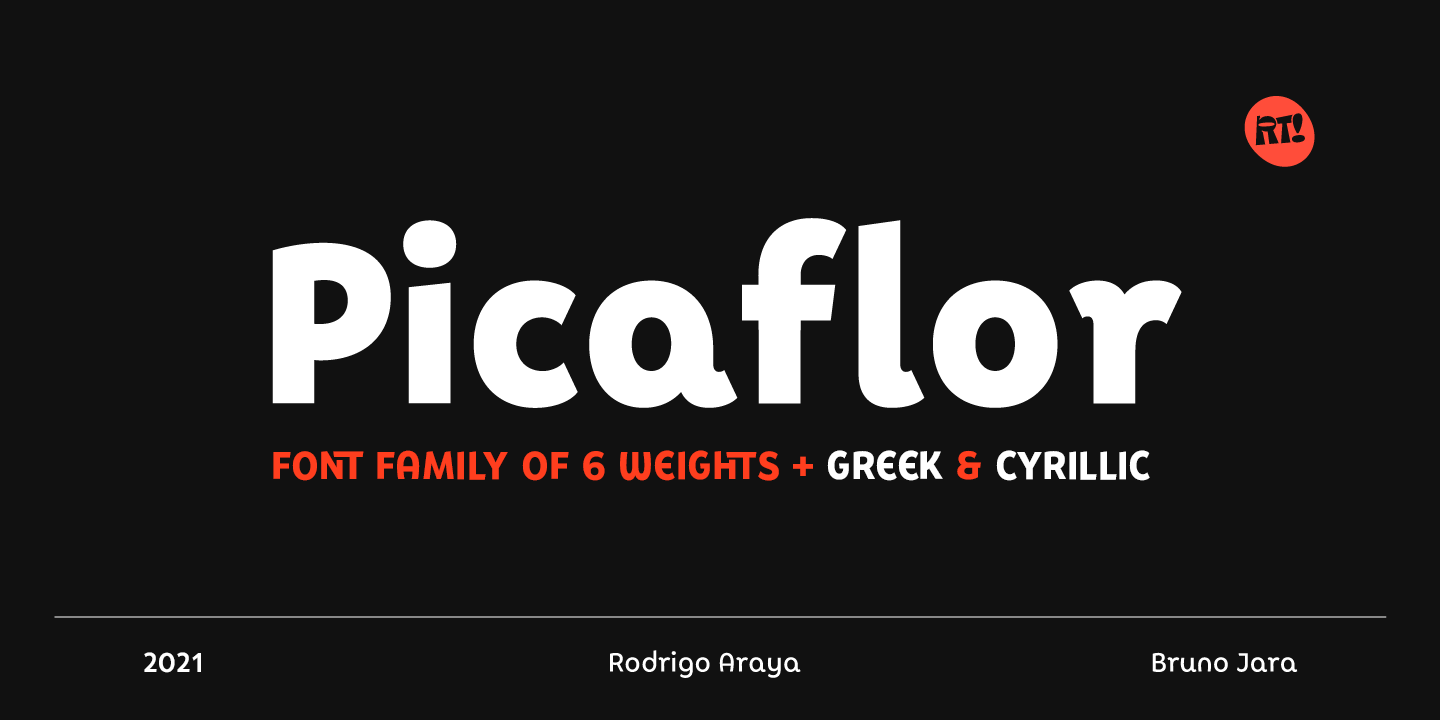
Picaflor Font is a captivating and versatile sans-serif typeface, often described as a hybrid that blends the refined aesthetics of French Didone with the expressive qualities of Spanish vernacular script. Its clean lines, balanced proportions, and distinct stylistic alternatives make it an excellent choice for titles, headlines, branding, and editorial design. Imagine it gracing the cover of a fashion magazine, adding an elegant yet approachable feel to boutique packaging, or providing a sophisticated touch to website headers. This font is also superb for event invitations, marketing materials, and any project where clarity, unique character, and an aesthetically pleasing visual identity are key. It doesn't just display text; it sings with a unique voice, bringing a touch of cultural flair to your message.
What makes Picaflor Font so exciting is its remarkable ability to marry seemingly disparate influences into a cohesive and delightful design. It possesses a distinctive charm that feels both classic and contemporary, creating a unique visual appeal that stands out from more conventional typefaces. This characteristic makes it a fantastic choice for designers looking to infuse their projects with a sense of sophisticated artistry and enduring quality. It’s a font that speaks with a polished and graceful voice, making it ideal for brands and content creators who want to convey a message of quality, creativity, and a refined aesthetic. Its captivating appeal can make any design feel more engaging and visually compelling, especially with its extensive support for Greek and Cyrillic alphabets.
The Picaflor Font family is comprehensive, offering a range of weights and styles to provide extensive design flexibility and allow for nuanced typographic expressions. Designed by Rodrigo Araya Salas and Bruno Jara, this sans typeface family typically includes:
Picaflor Thin
Picaflor Light
Picaflor Regular
Picaflor SemiBold
Picaflor Bold
Picaflor Black
These various weights, along with many alternatives from ligatures and letters, empower designers to create effective visual hierarchies, emphasize important information, and maintain a consistent, polished, and contemporary look throughout all digital and print assets. The opportunity to utilize Picaflor Font Free Download is an excellent way to experience its versatile elegance and modern appeal for your personal projects.